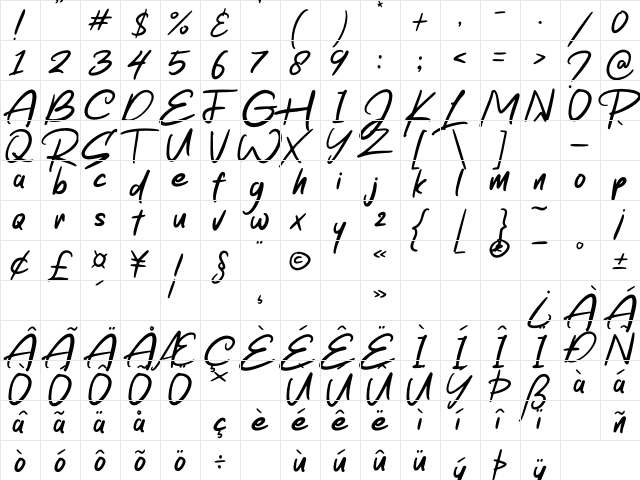
Amstrike Regular
| Designer | Muhammad Sirojuddin |
Design Context for Amstrike Typeface
Amstrike is a composed and adaptable typeface that performs quietly and consistently across a wide range of design contexts.